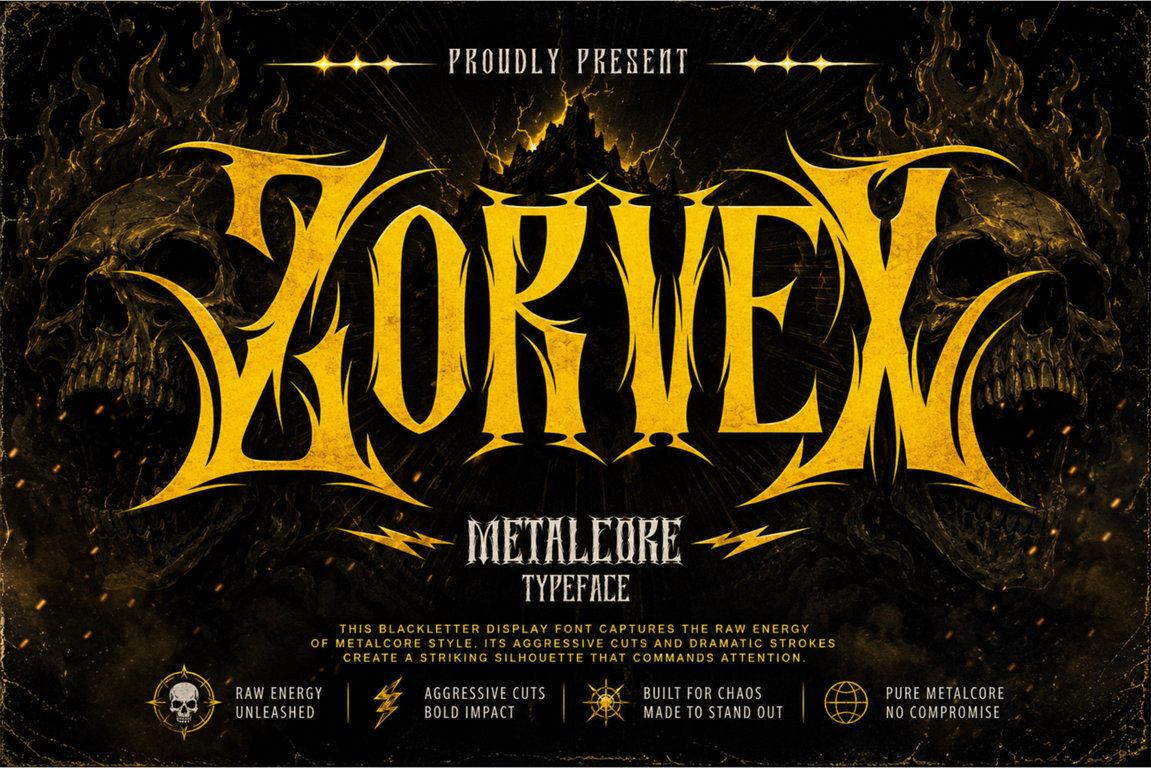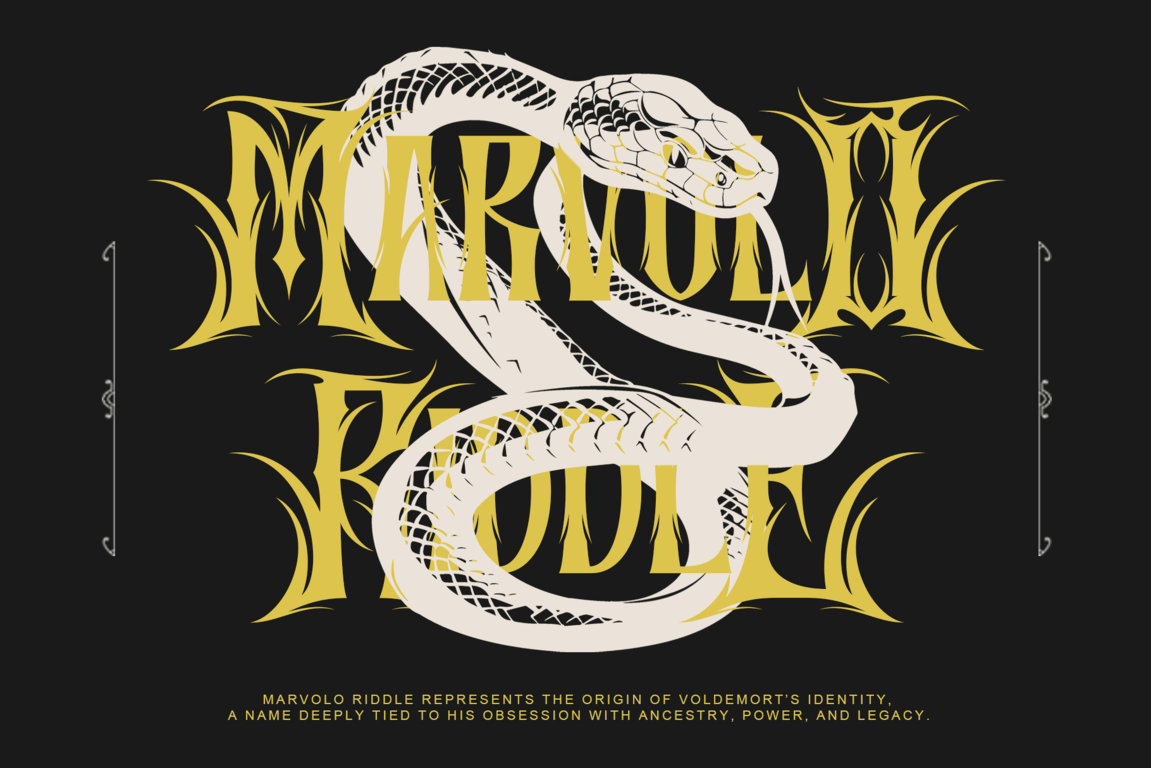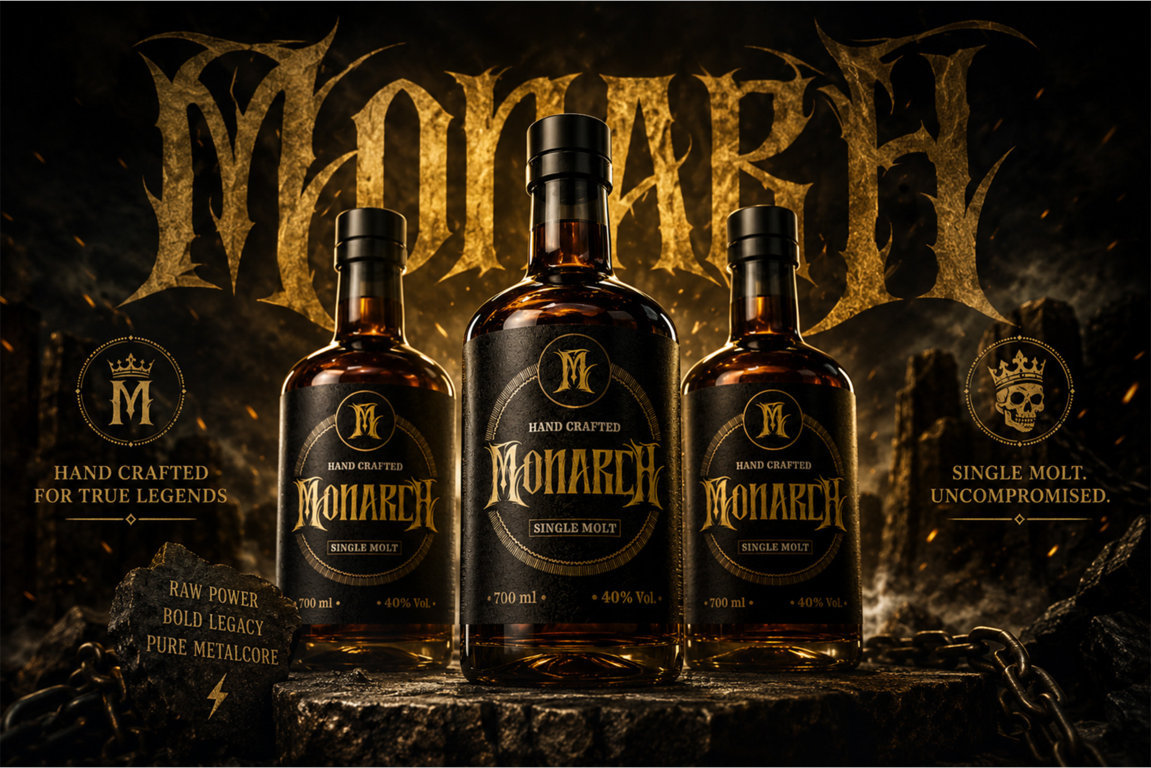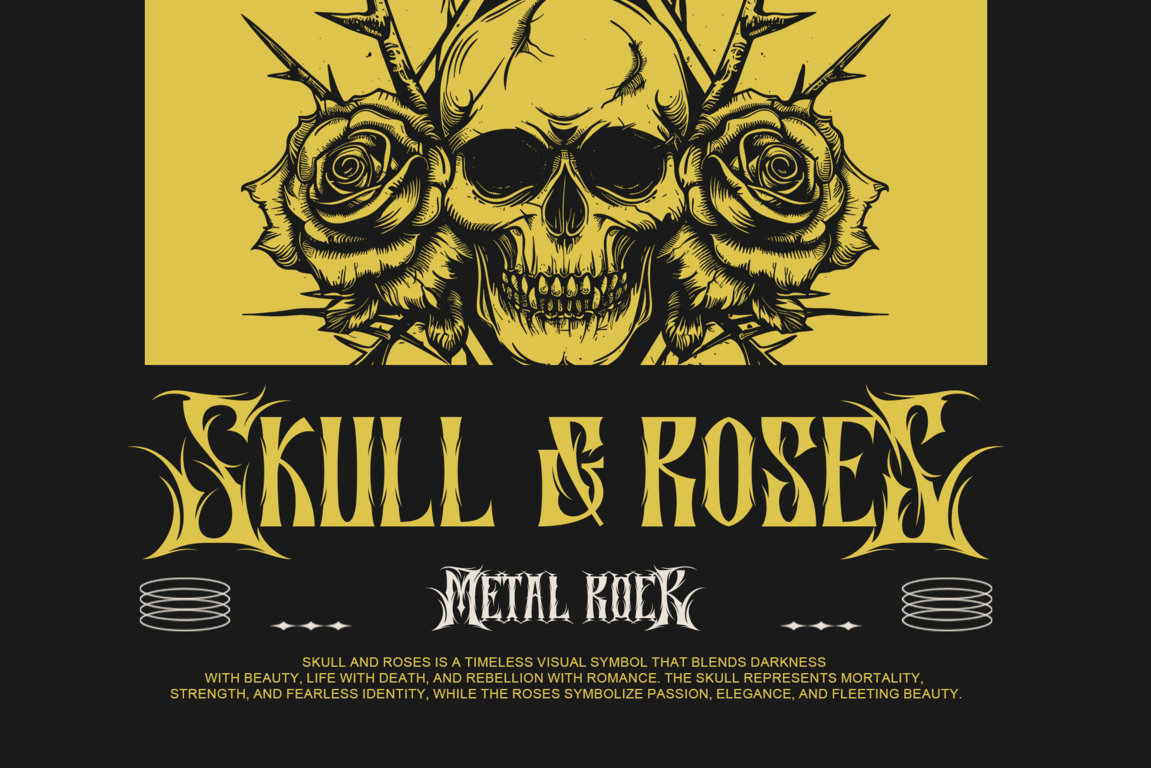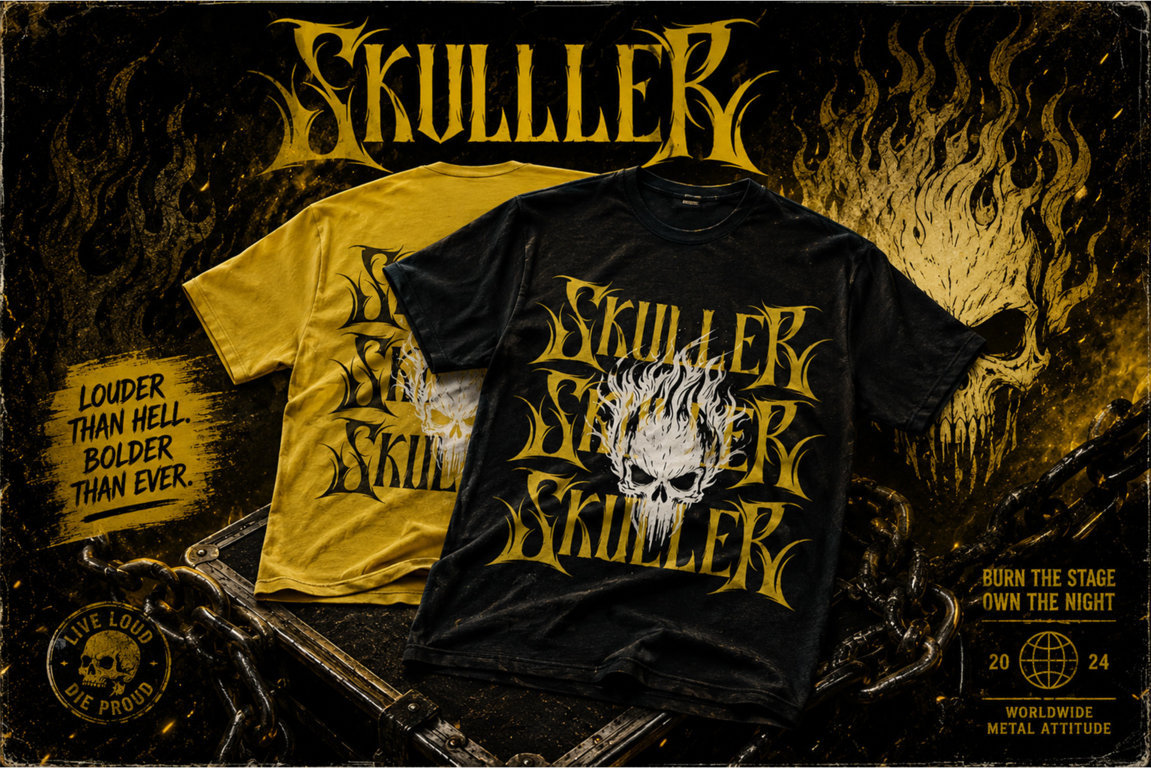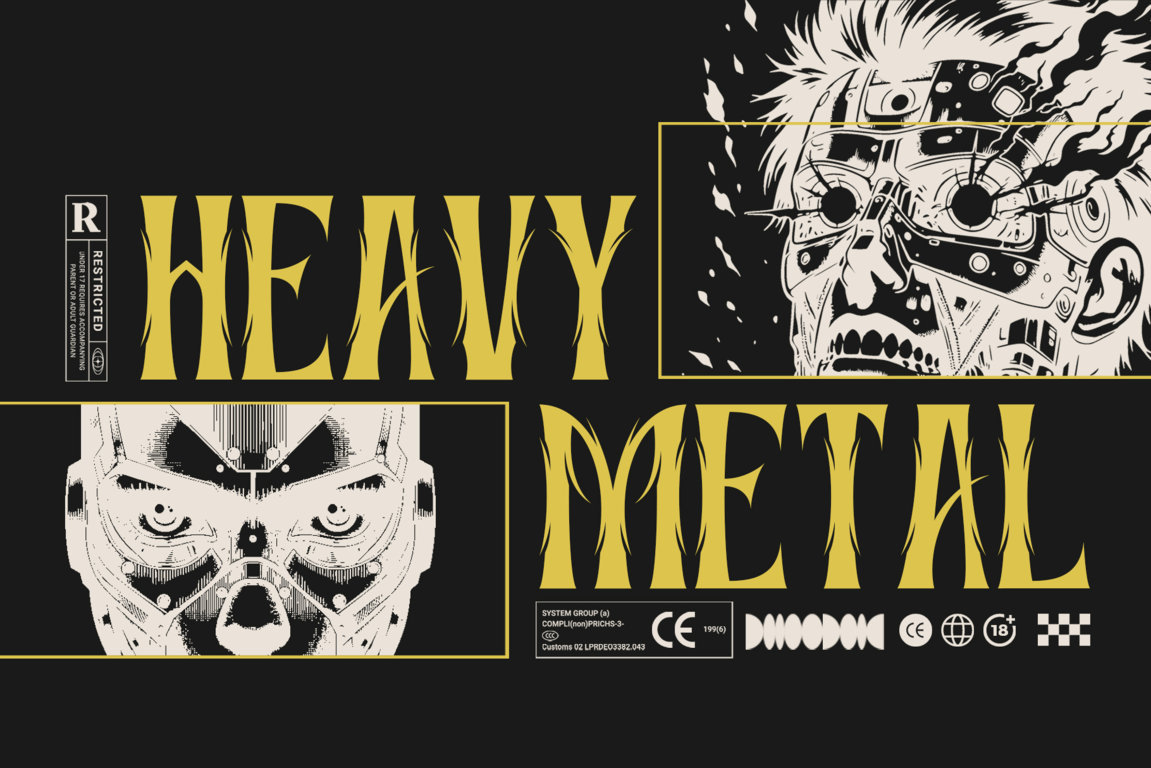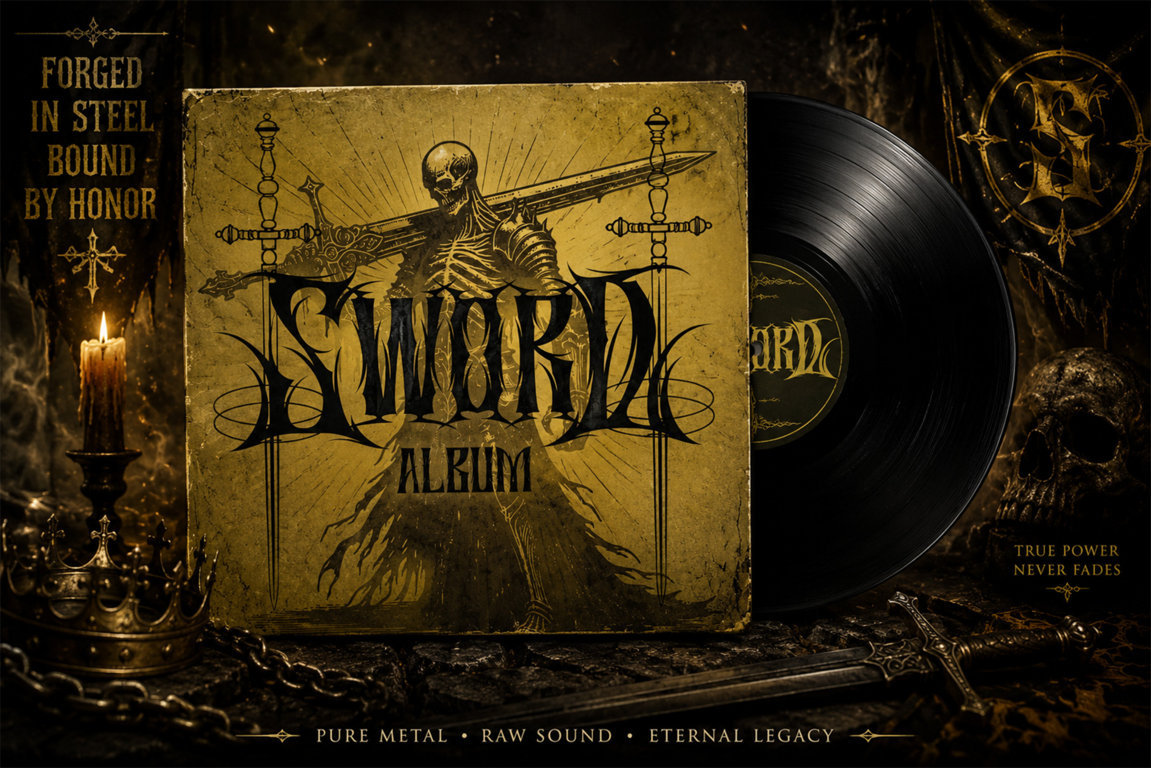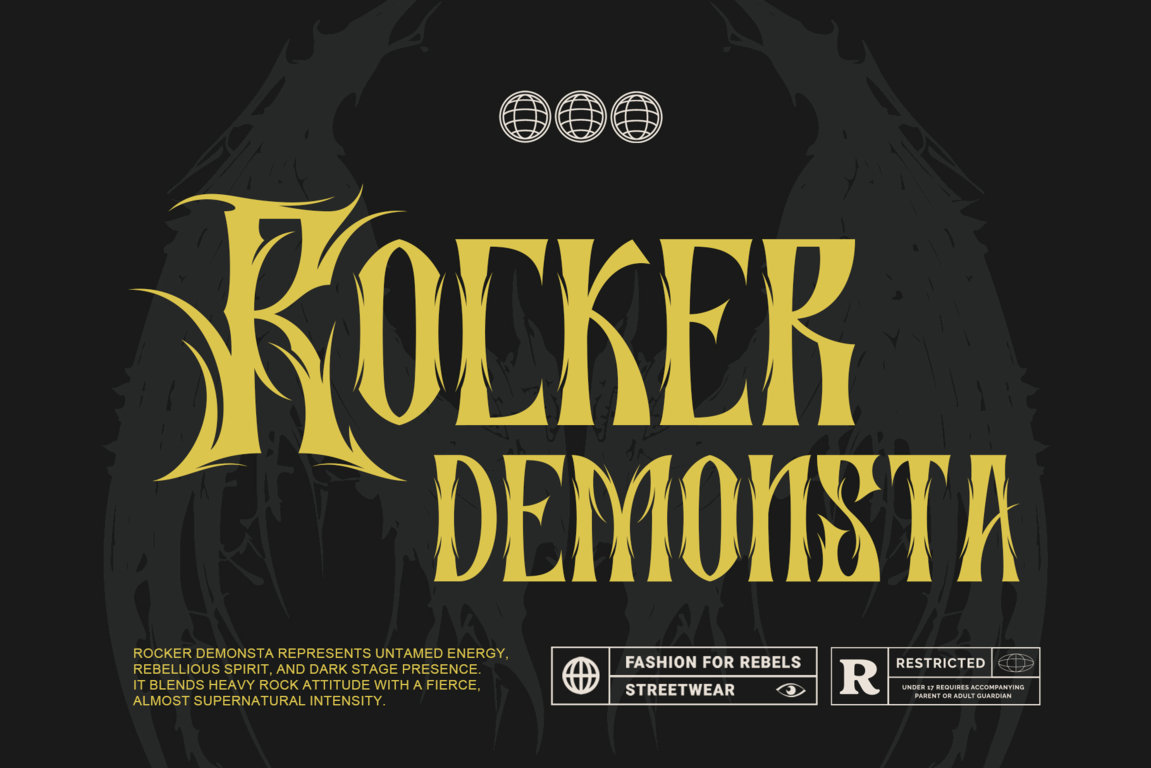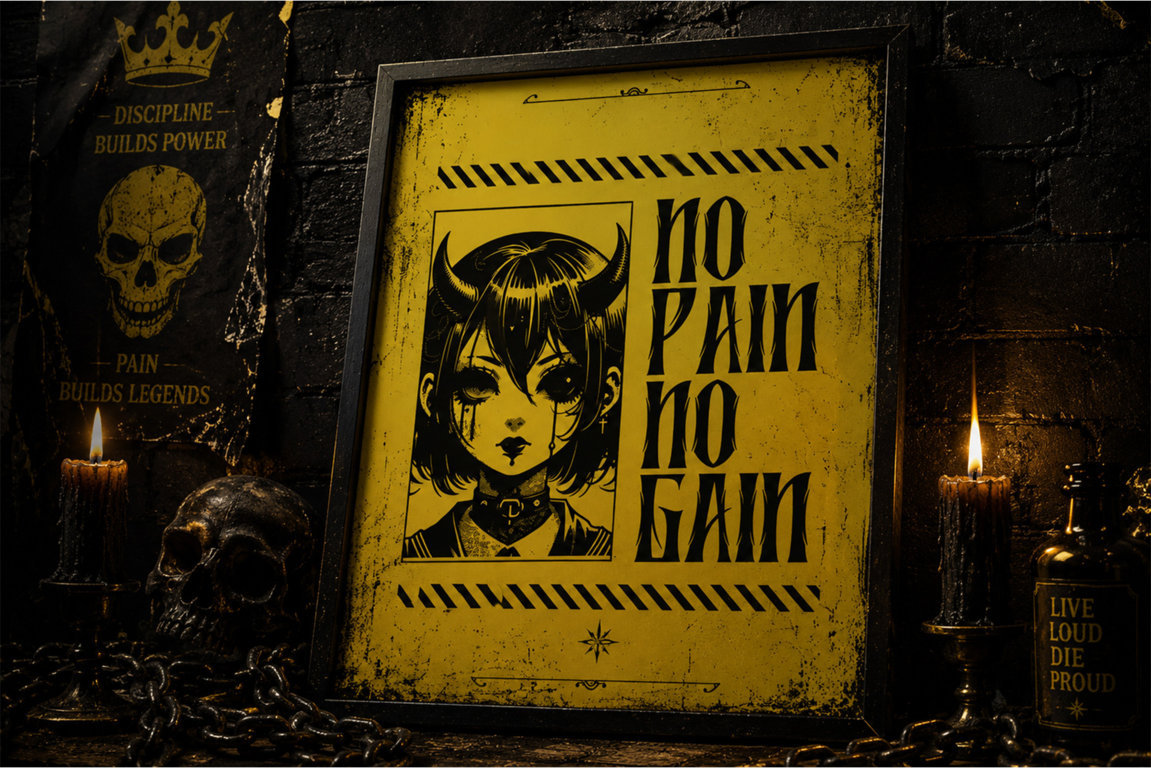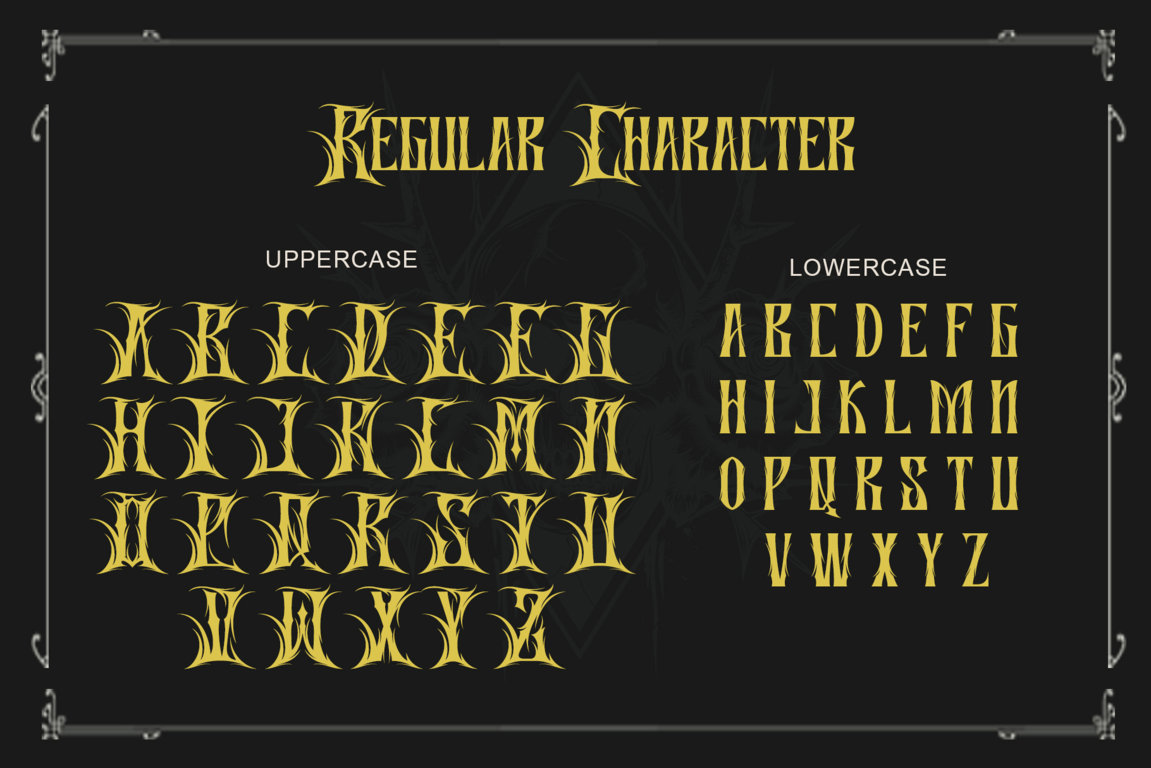
Zorvex is a powerful blackletter display font crafted with sharp aggressive forms and dramatic gothic energy, designed to create a commanding visual presence for professional creative projects. Its bold structure, intense character details, and modern metal-inspired aesthetic make it ideal for posters, album artwork, gaming titles, cinematic branding, event promotions, dark-themed packaging, and impactful visual identities that require a strong, unforgettable statement.
Features:
- Support multilingual; ä ö ü Ä Ö Ü ß ¿ ¡
- Numerals & Punctuation
- uppercase letters
- Alternate, swash, & Ligature